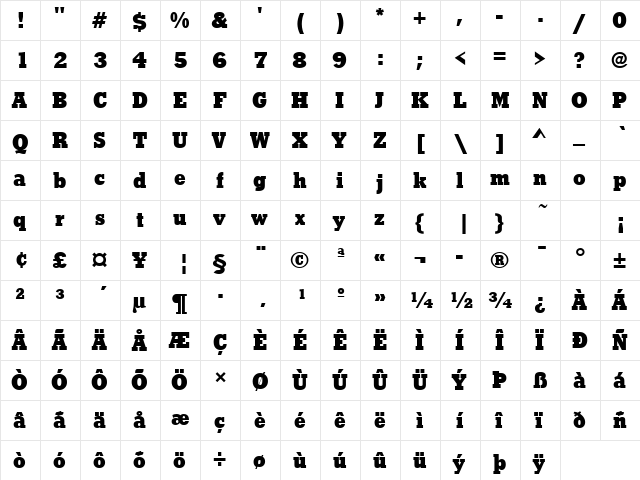
StymieTBla Regular
Design Context for StymieTBla Typeface
StymieTBla takes a measured approach to typography — its balanced proportions and neutral character make it a reliable workhorse for both digital and print work.